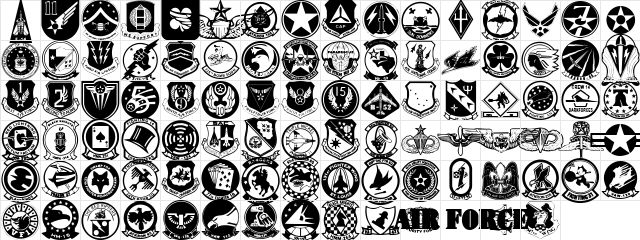
Wings of America Regular
Design Context for Wings of America Typeface
Wings of America is a composed and adaptable typeface that performs quietly and consistently across a wide range of design contexts.